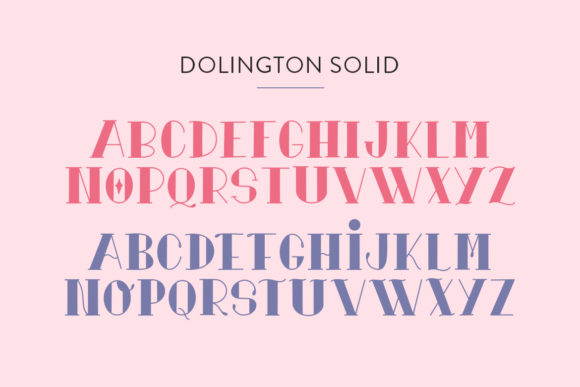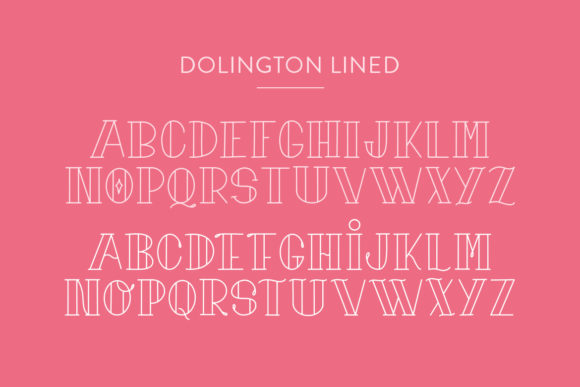
The Perfect Blend of Nostalgia and Elegance: Introducing Dolington Font
Have you ever stumbled upon an old family photo album and felt an instant rush of nostalgia? The faded colors, the worn-out pages, and the timeless charm all come together to transport you back in time. As a designer, you know that capturing this essence in your work can be a challenge. That’s where the Dolington Font comes in – a unique serif font that adds a playfully nostalgic touch to any design.
This vintage-inspired font is more than just a pretty face; it’s a valuable tool for designers looking to add a retro aesthetic to their projects. Whether you’re working on a branding campaign, a website, or a print ad, Dolington Font can help you create a lasting impression. With its elegant lines and classic charm, it’s the perfect addition to any design idea you can think of.
Dolington Font Key Features
- Font Family: Dolington Font is a serif font family, available in multiple weights and styles.
- Size: The font family consists of 12 weights, ranging from Extra Light to Extra Bold, with corresponding italic styles.
- Unique Characteristics: The font features a classic, elegant design with subtle flair and ornate details, making it suitable for formal and professional applications.
- Language Support: Dolington Font supports a wide range of languages, including Latin, Cyrillic, and Greek alphabets.
Dolington Font Review
I recently had the chance to work with the Dolington font, and I must say it’s been a mixed bag. ✨ The font’s unique blend of modern and vintage elements works well in certain contexts, particularly in branding and advertising where a touch of nostalgia is desired. The Dolington font is also versatile and can be used in a variety of settings, from body text to headings.
One of the standout features of the Dolington font is its excellent legibility. The font is clear and easy to read, even at smaller sizes, making it a great choice for digital applications. Additionally, the font’s weight and style options allow for a good range of expression and flexibility.
However, there are some limitations to the Dolington font that should be noted. ⚠️ The font’s complexity can make it difficult to pair well with other fonts, and its unique style may not be to everyone’s taste. Additionally, the font may not be the best choice for body text in long documents, as its complexity can become overwhelming.
- Works well in branding and advertising
- Excellent legibility
- Good range of weight and style options
Overall, the Dolington font is a solid choice for designers looking to add a touch of personality to their projects. While it may not be the best fit for every project, its unique style and excellent legibility make it a valuable addition to any designer’s toolkit.
The Dolington font is a great choice for:
- Food and beverage branding
- Home decor and signage
For optimal results, use the Dolington font in conjunction with a clean and simple design aesthetic.